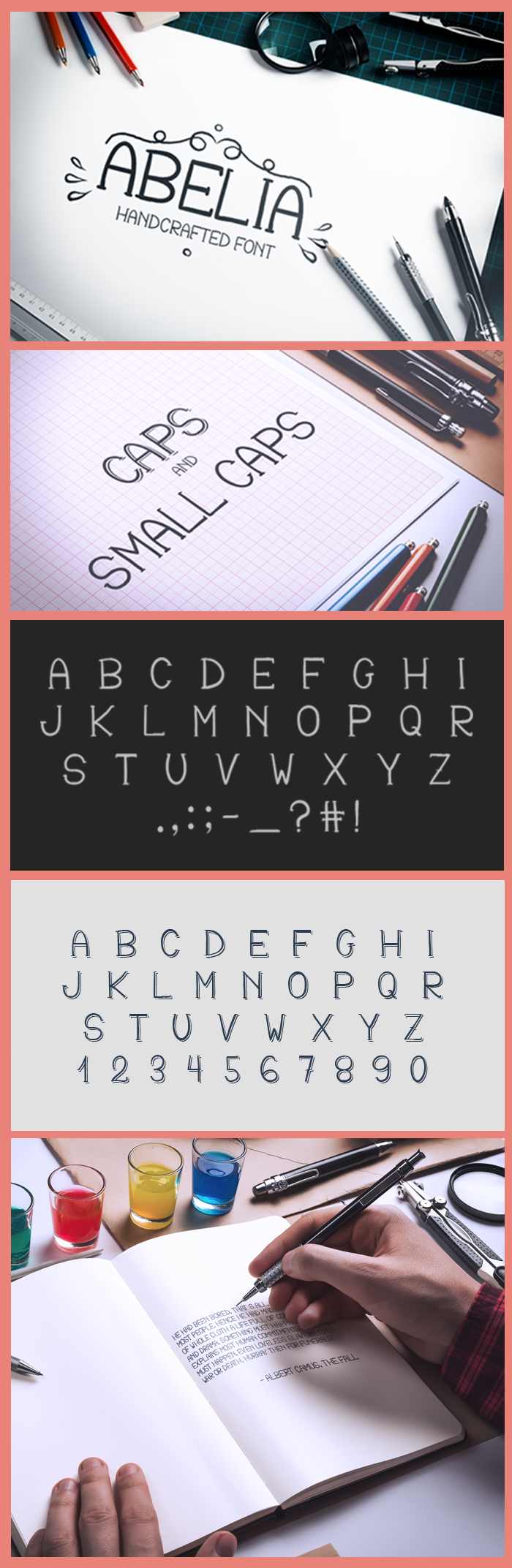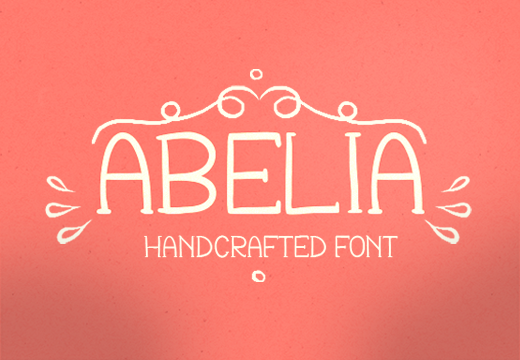
The Only Handcrafted Font You Need!
Abelia is one of the many handcrafted font released by InkyDeals. Its purpose is to convey a personal note, while still preserving its lettering discipline. Caps and all caps glyphs make it suitable for titles and notes, but it also does a neat job with sub-titles and paragraphs.
It is easily readable, is well-rounded and looks even better with hand-crafted decorations.
One might say it’s a lackluster because it has no small letters. But the reason it lacks the lowercase glyphs is that it would overshadow its true purpose: decorative titles!